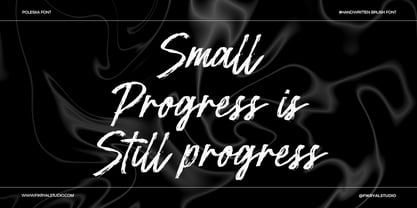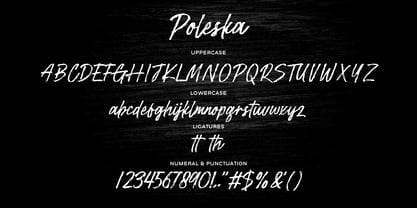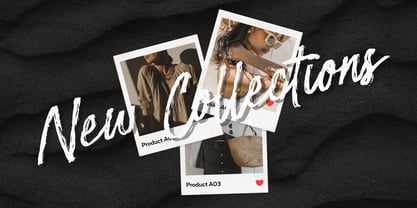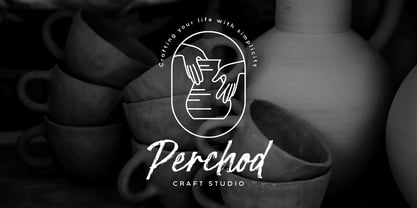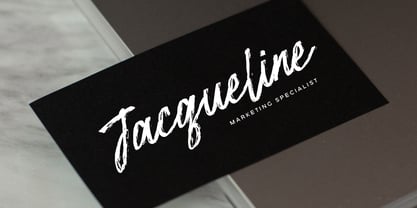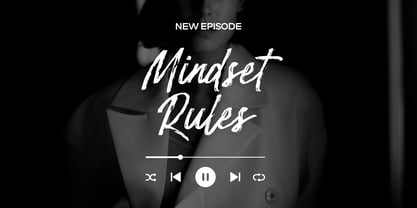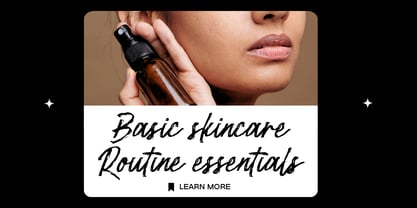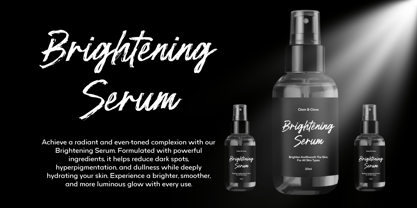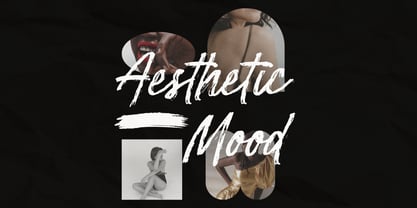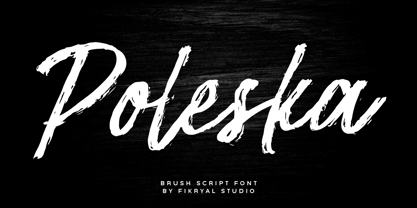
Poleska
by Fikryal
The Poleska Font Family was designed by Muhammad Fikry and published by Fikryal. Poleska contains 1 styles. More about this family
Introducing Poleska – Handwritten Brush Script, a dynamic and expressive script font with a natural brushstroke style. Designed to capture the beauty of hand-drawn lettering, Poleska brings an organic and personal touch to any project. With its fluid strokes and authentic texture, this font is perfect for branding, logos, product packaging, social media graphics, invitations, and more.
Whether you’re crafting a bold statement or adding a stylish handwritten touch, Poleska delivers versatility and character in every letter.
Features:
• Handcrafted brush script style
• Natural and expressive stroke details
• Multilingual support
• Ligatures
• Ideal for branding, packaging, social media, and more
Give your designs a fresh, artistic feel with Poleska – Handwritten Brush Script!